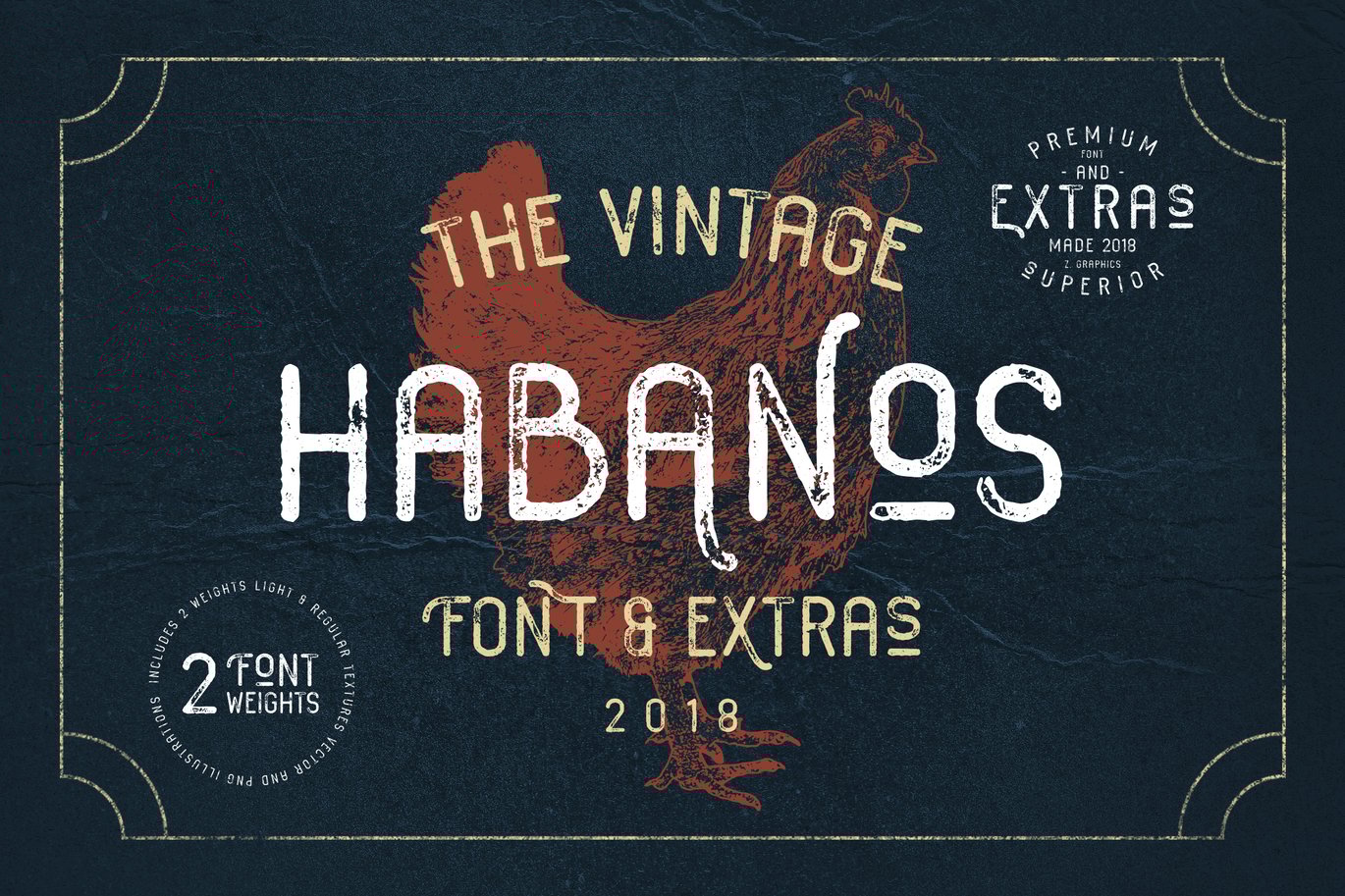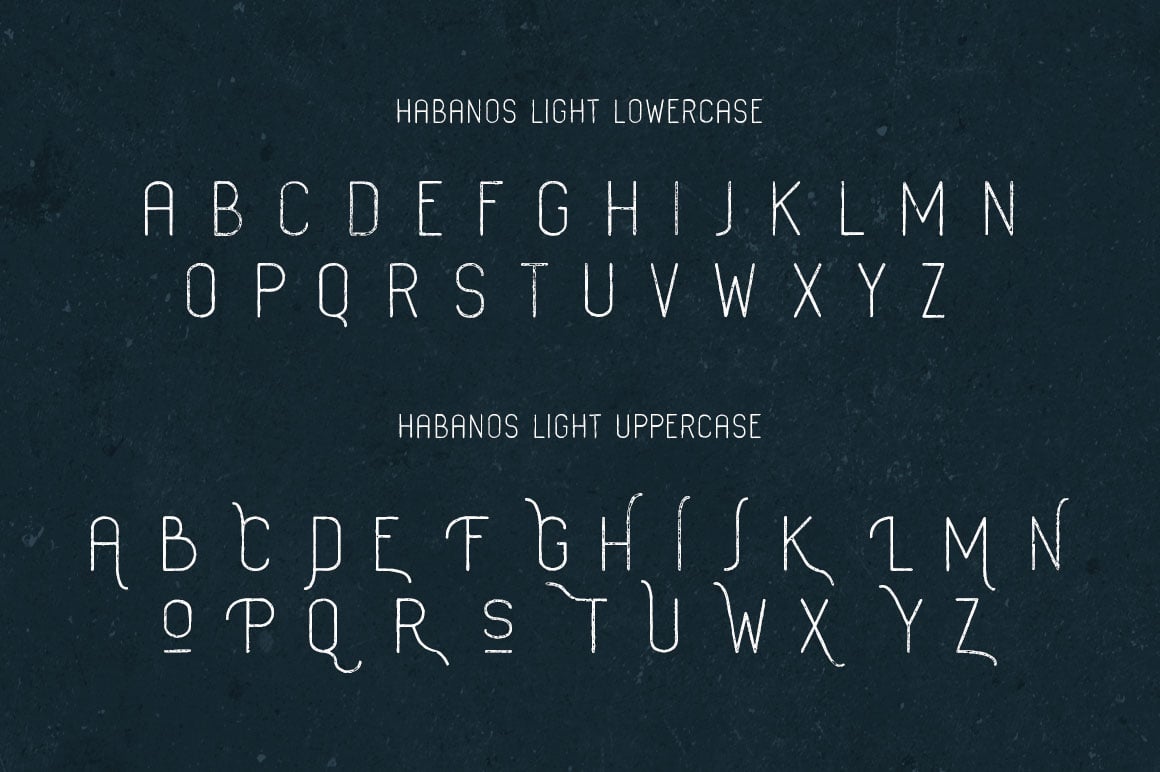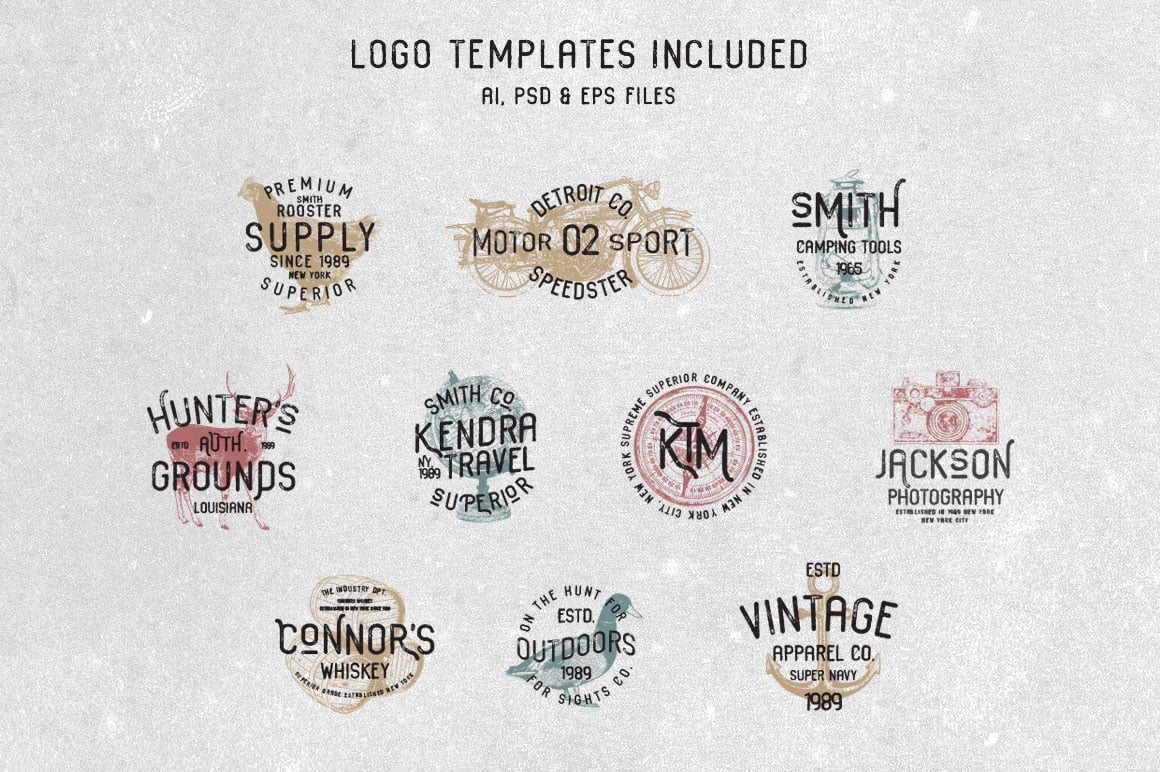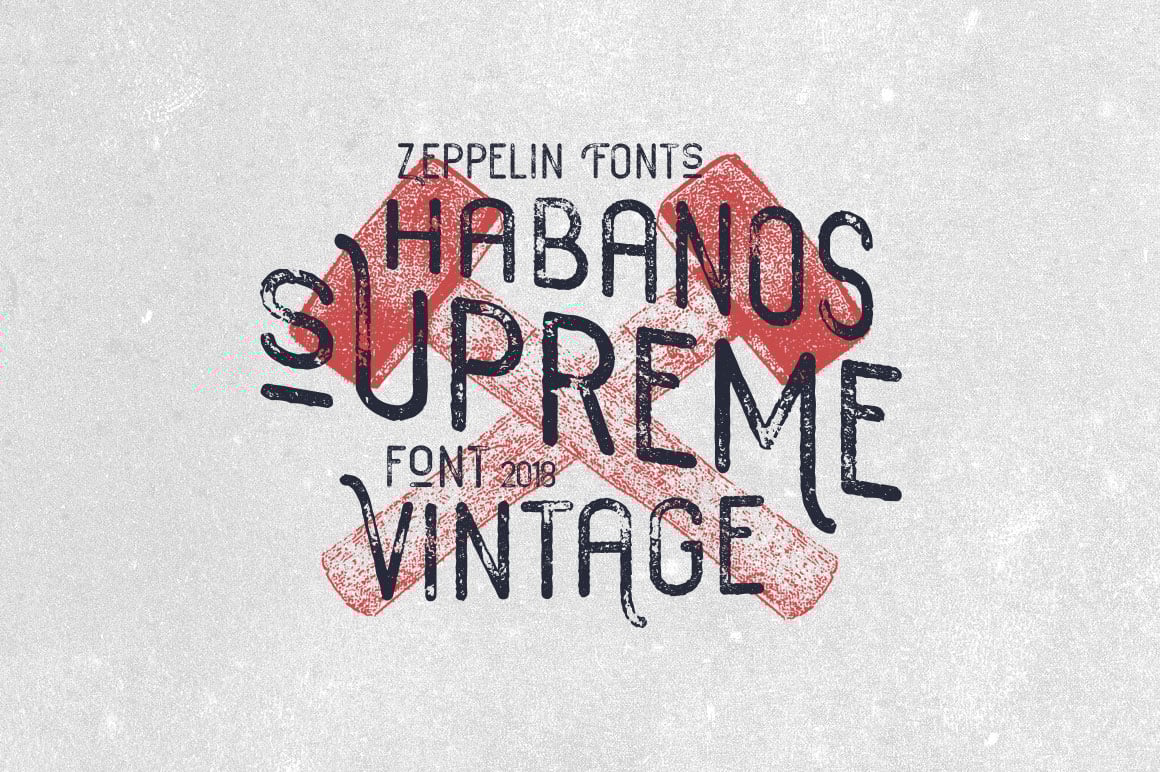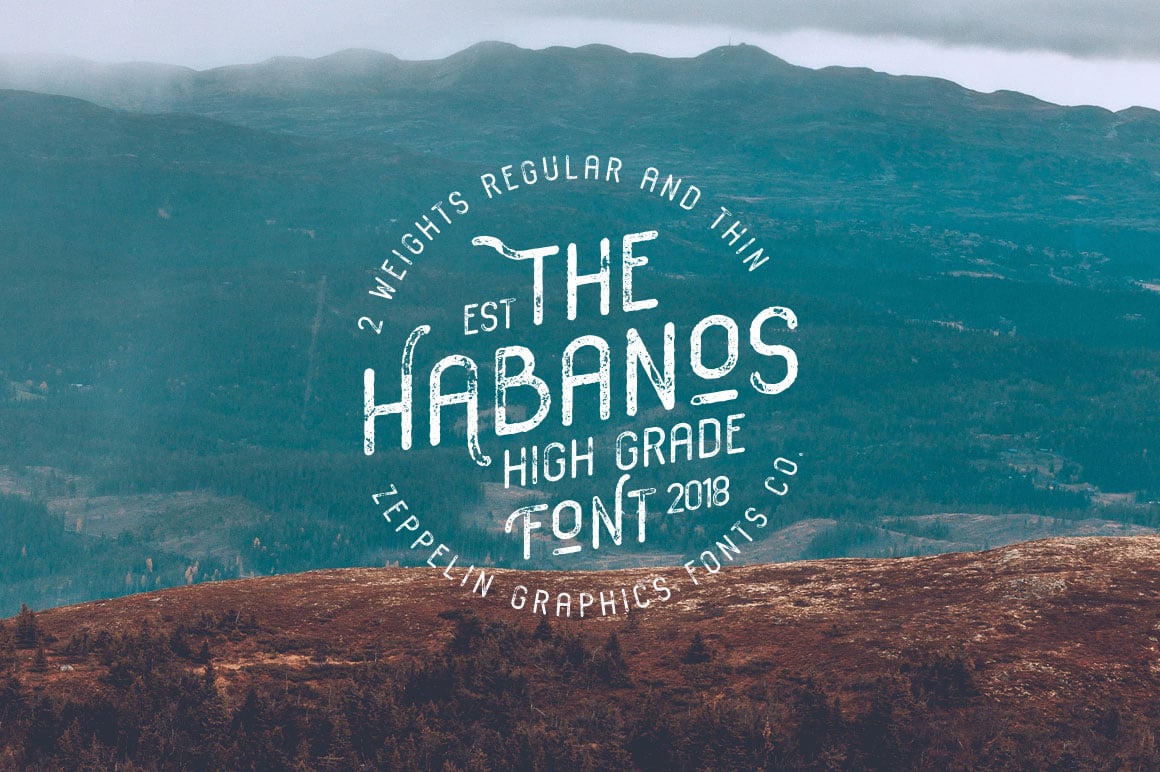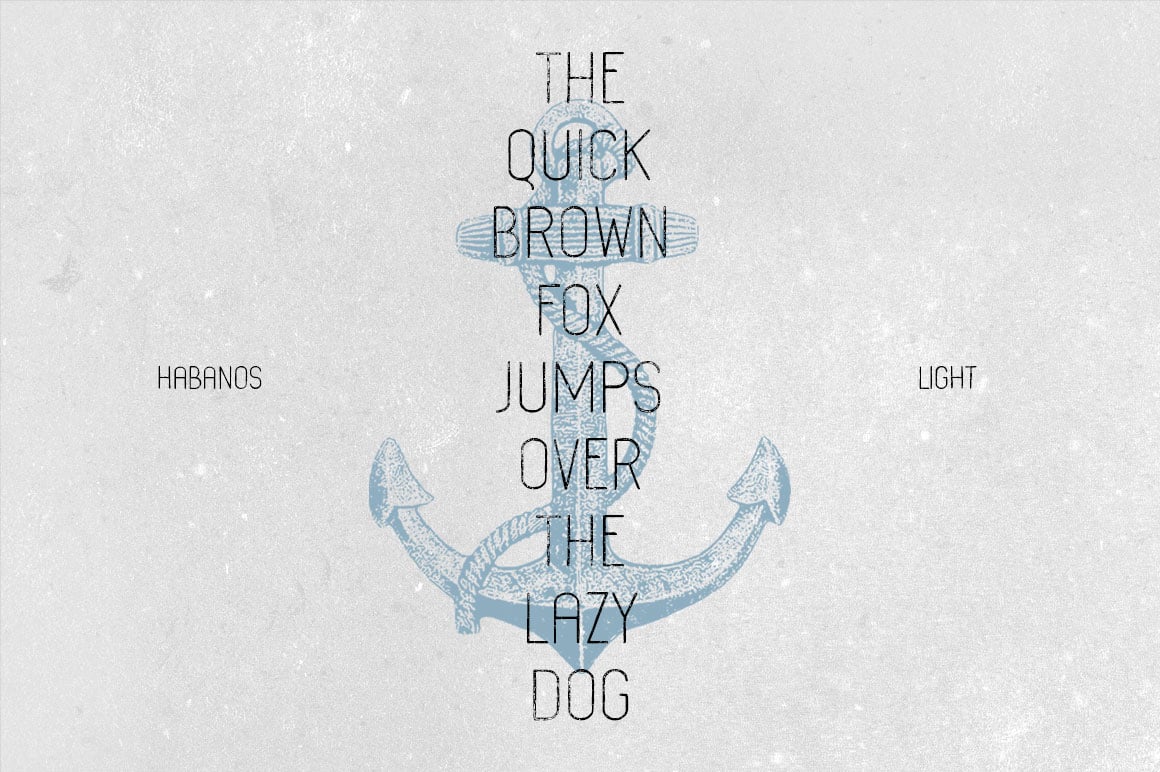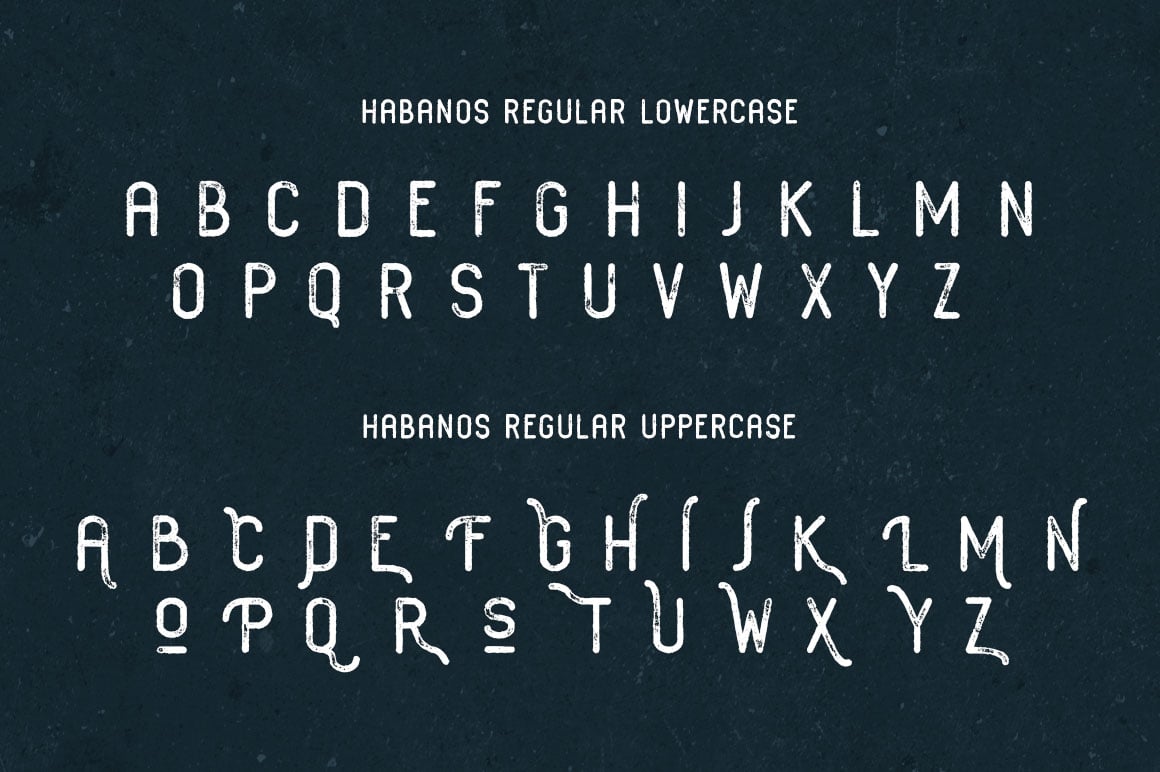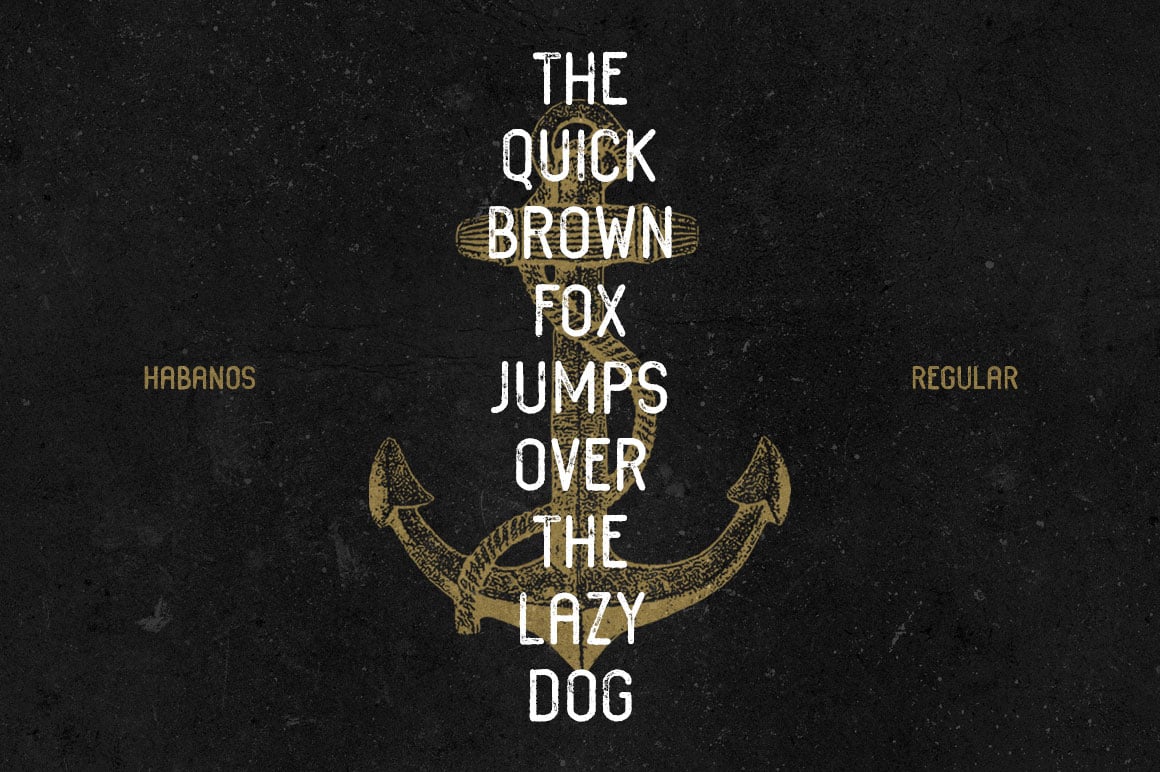
Habanos Retro Font
We really love retro fonts and letterpress so we created Habanos for our project and then created this toolkit that includes 2 fonts (Habanos Regluar and Light), textures, illustrations and premade logos.
Create awesome graphics with the bonus textures and illustrations included. We also made some logos for the presentation of this font and decided to include those too!